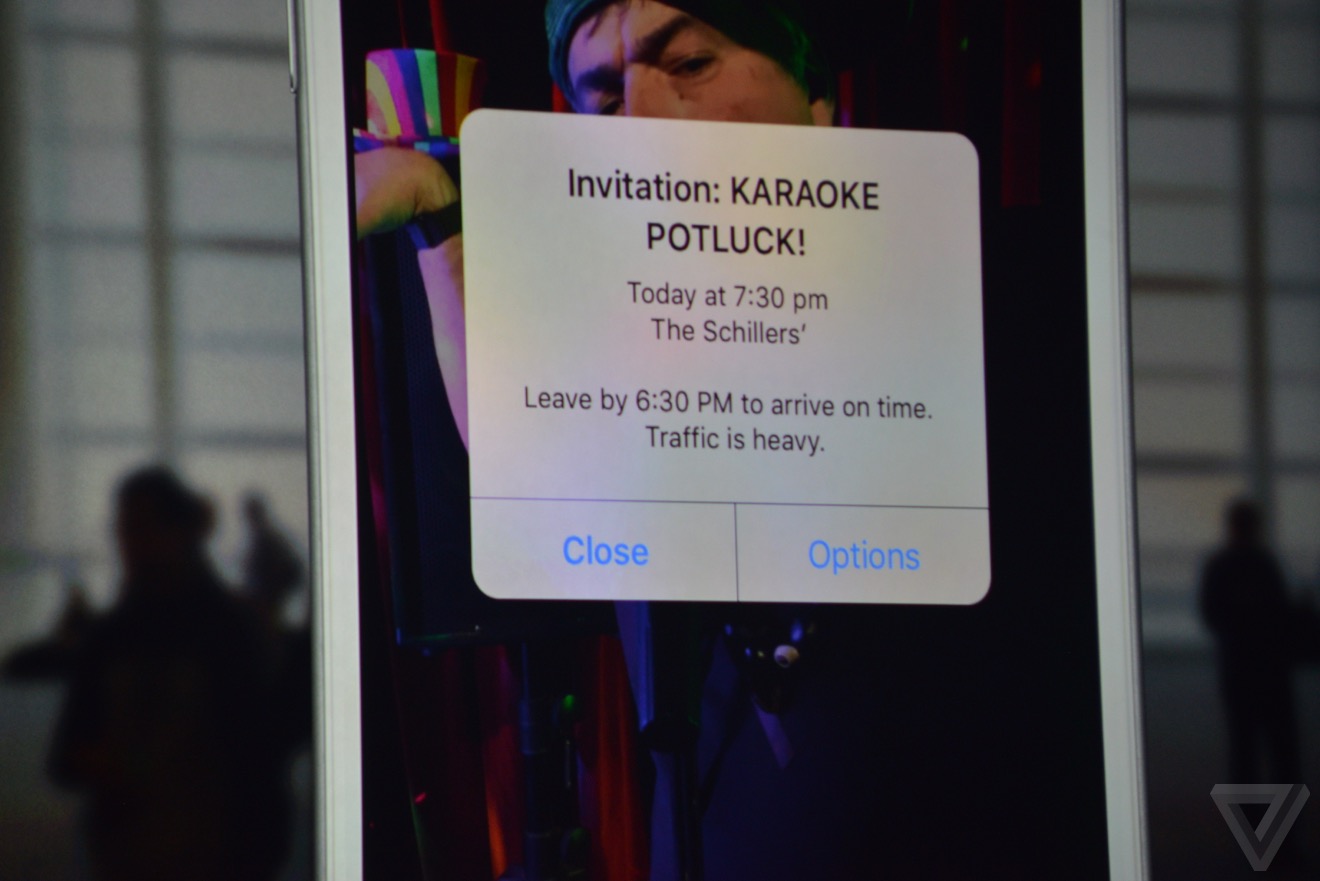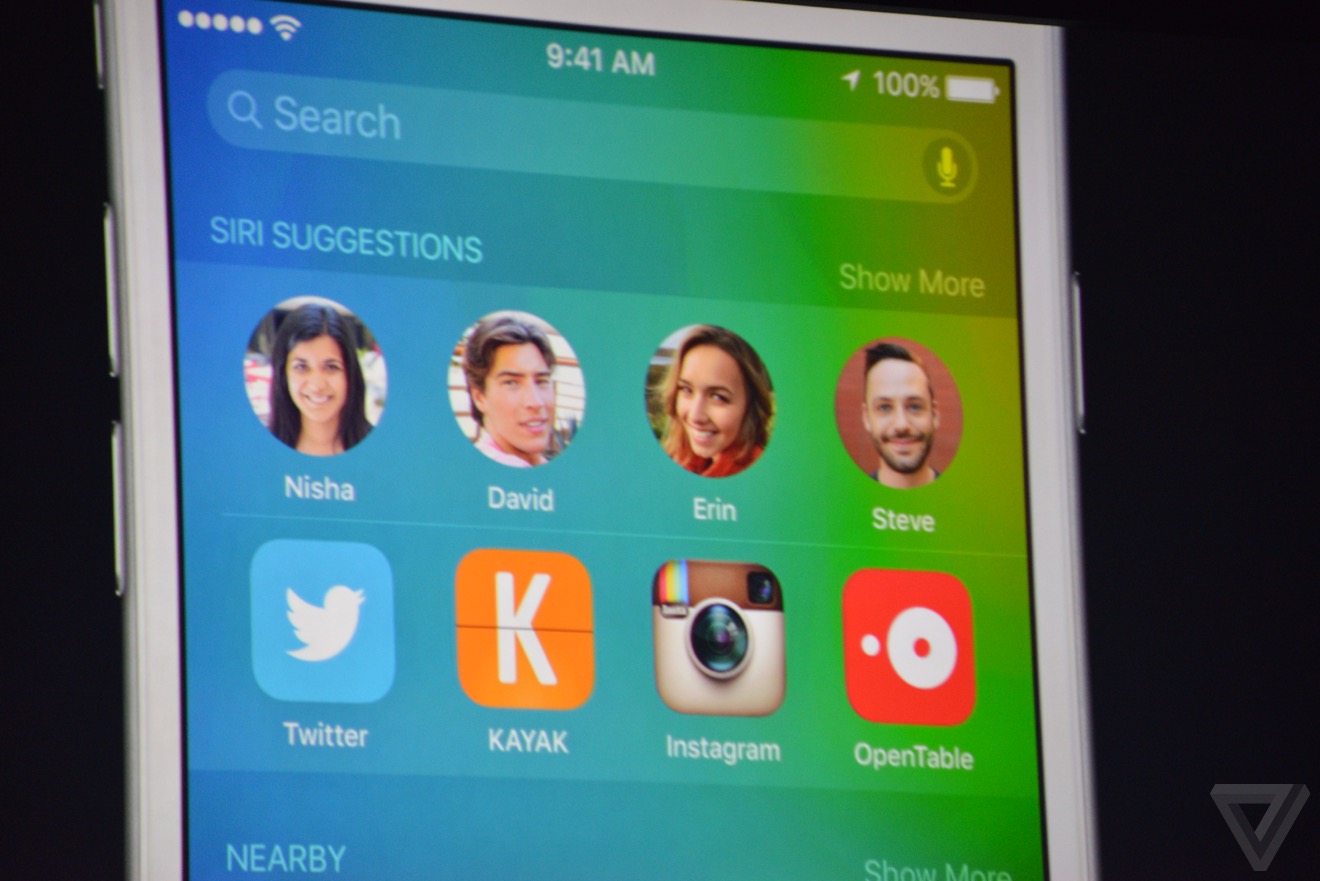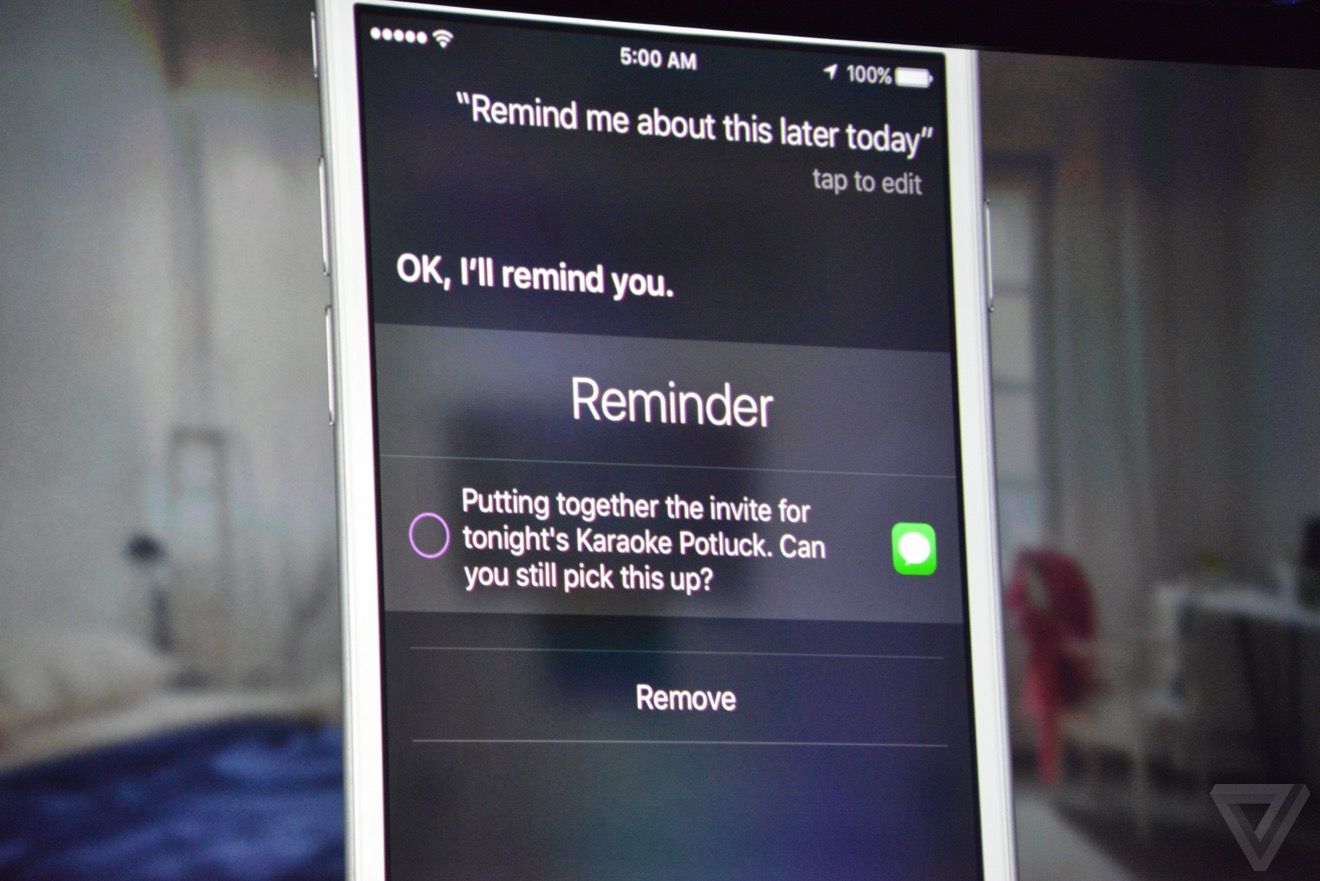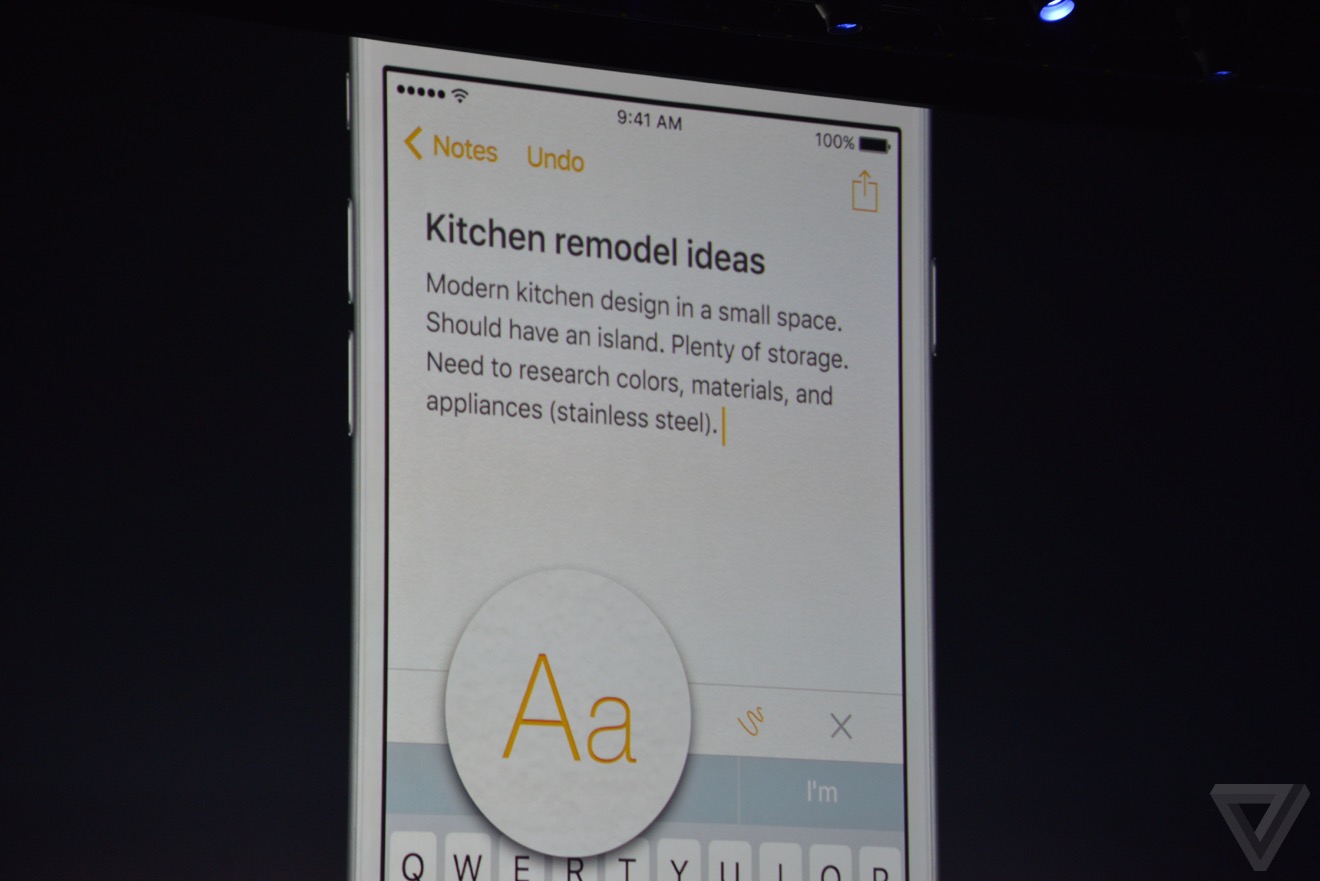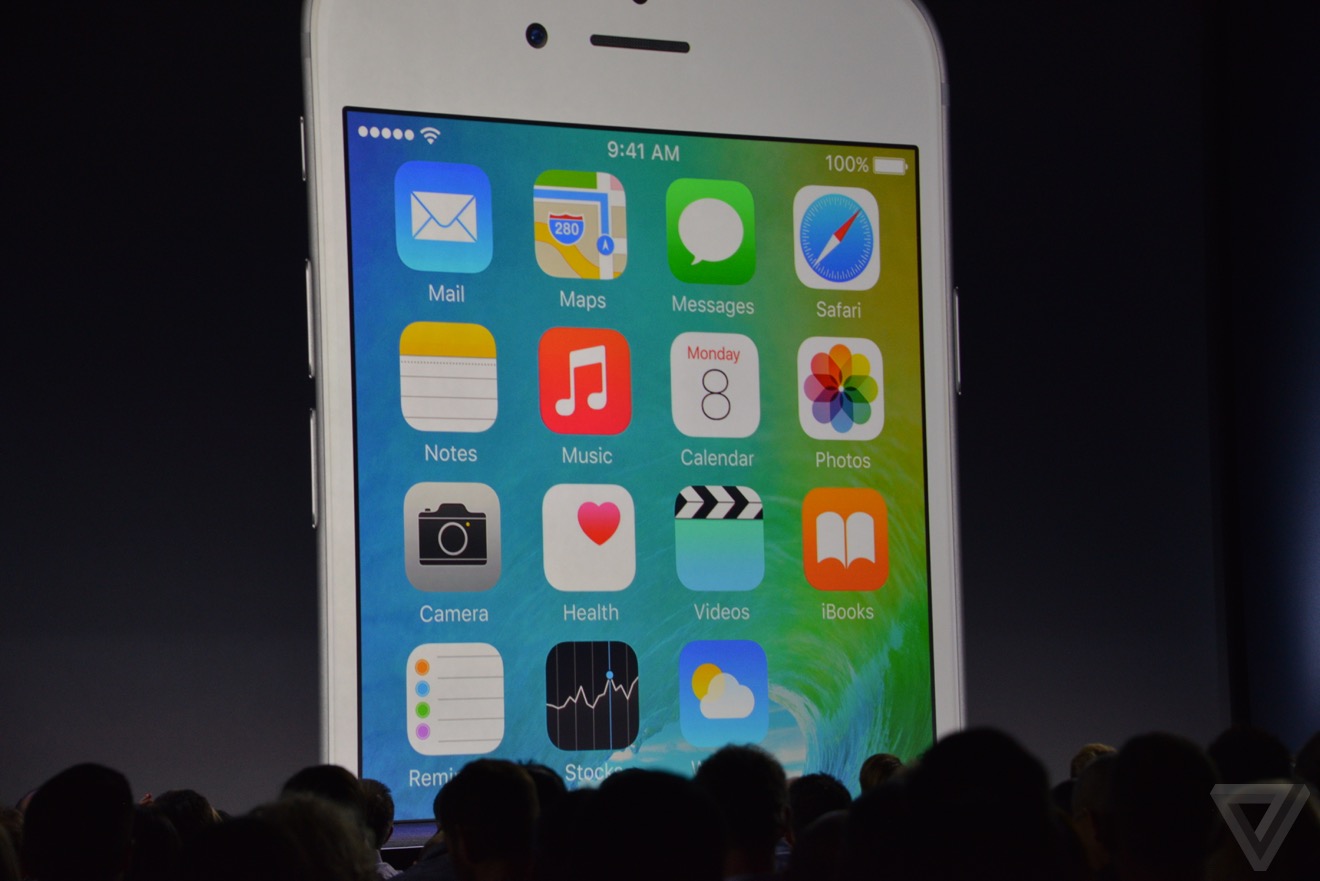
Should Apple bring its Apple Watch font to iOS 9?
What font is this? San Francisco?
Yeah they made it look better than the one in those previous screenshots. Almost hard to tell at first glance that its a different font
Helvetica Neue was always a terrible display font, as it wasn't designed for that. SF looks a lot nicer, and is more readable. Looks really good to me.
Can anyone confirm that this new font -- I'm guessing it is San Francisco as rumored -- is also used in El Capitan?
So I compared the San Francisco Apple released for the watch, and the one being used on iOS, and they are very different. The top font is from the watch. The one on the bottom is a screen shot from iOS.
Wow, that's enough difference that I would have expected them to call it something else. Even if still including the San Francisco name.
So I compared the San Francisco Apple released for the watch, and the one being used on iOS, and they are very different. The top font is from the watch. The one on the bottom is a screen shot from iOS.
Seems like a more widened version of it in a sense, otherwise quite similar.
It was kind of weird that they didn't even mention the font change considering it was used for both OS X and iOS. With how few changes actually took place with this release you'd think they would have at least acknowledged it
Could be that by not pointing it out they are thinking people won't pay much attention to it and just use it. Otherwise people are going to starting thinking there's something different and why and all that, which isn't what Apple wants the typical consumer to really be thinking about.
My original reaction to San Francisco was that I didn't love it on the watch...fine, but not great. So, I was nervous about it heading to iOS.
After installing the iOS9 Beta, I wasn't even sure at first if the font had changed. After getting into Mail and a few other apps the change became obvious and I really like it.